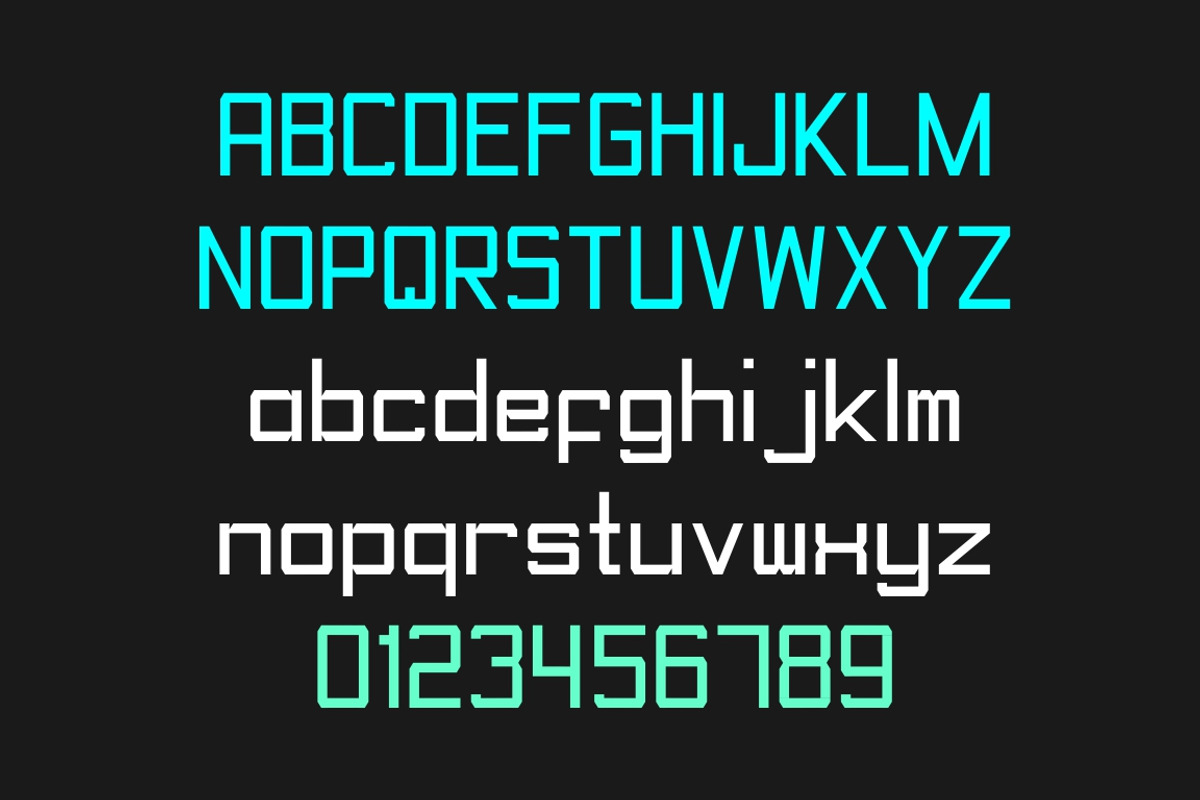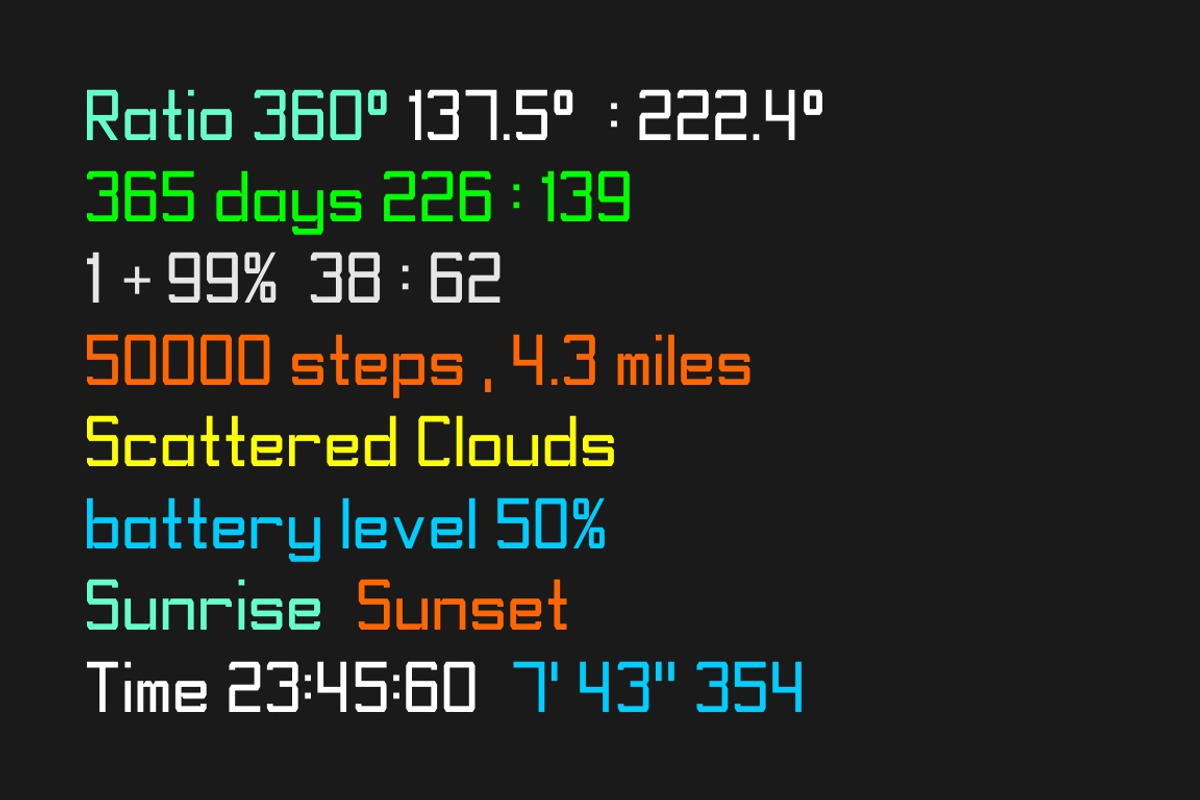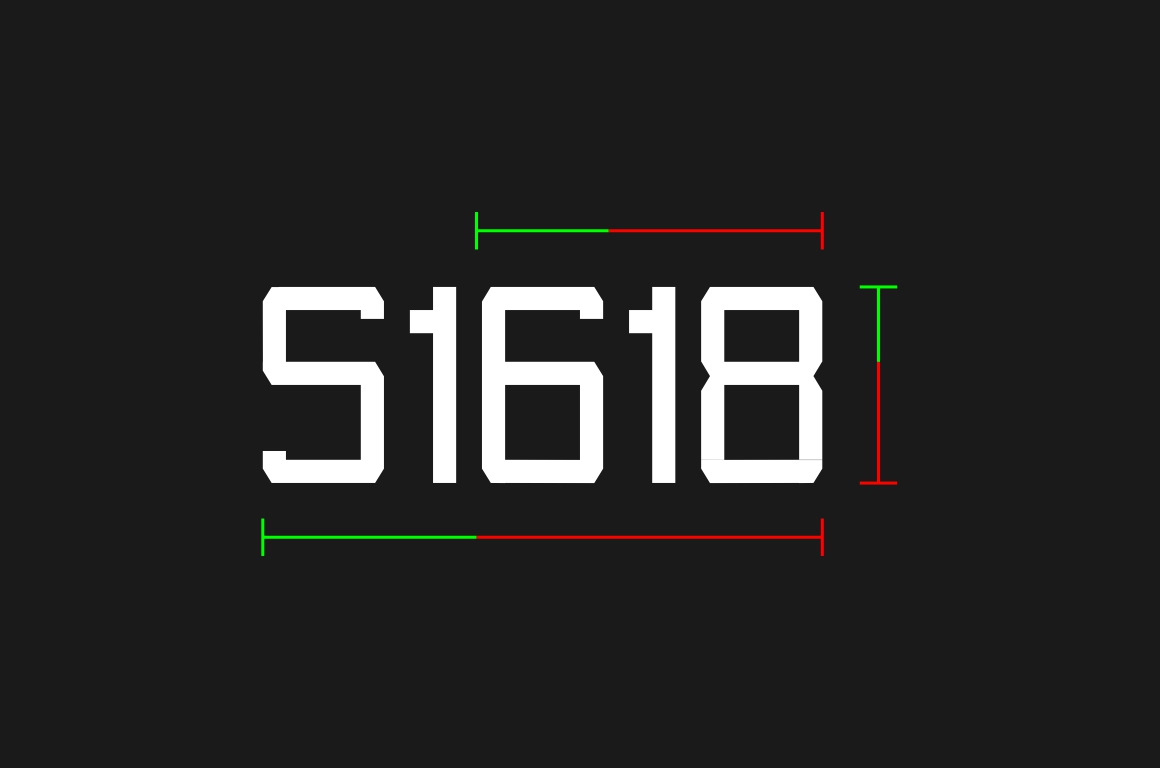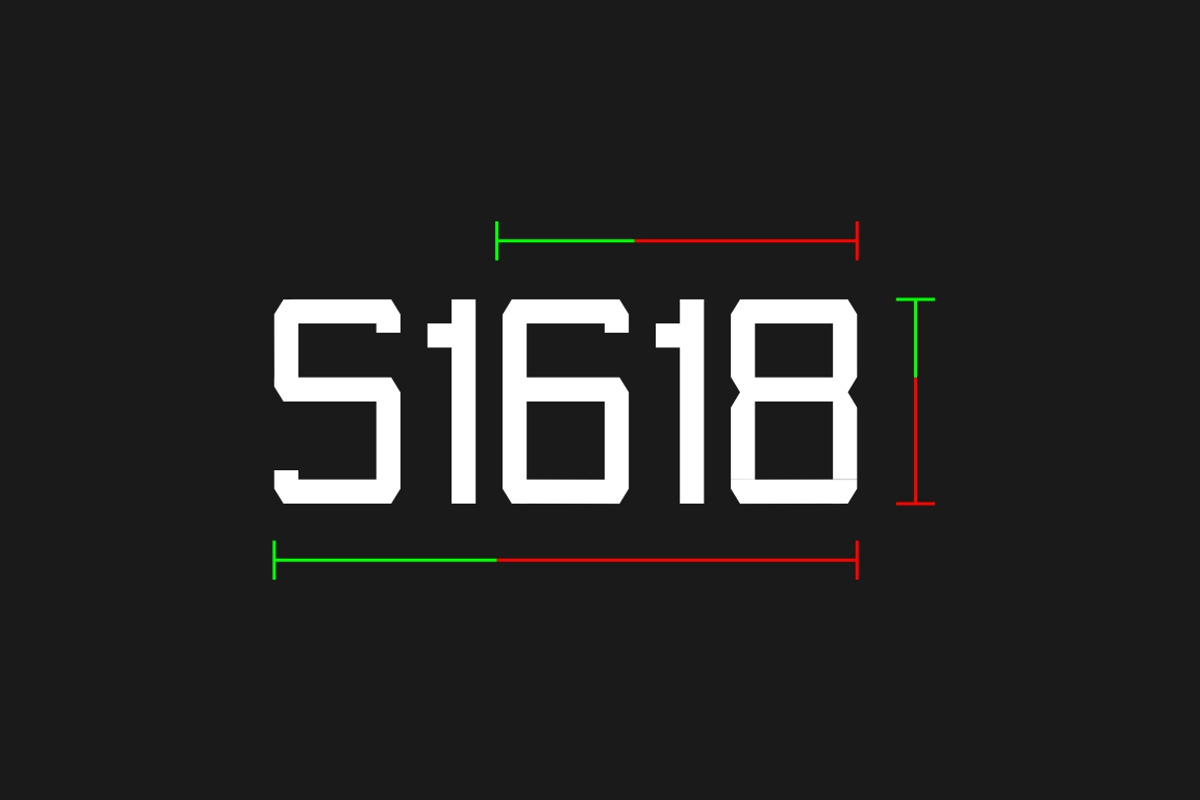
S1618 Display font
Description:
s1618 font suitable for type of modern technology information, including mobile phones, televisions, printers, computers, electronics or science-fiction designs. useful both for presentation, industrial and commercial information displays as well as for hobbyist human–machine interfaces. The refresh rate is typically fast enough to prevent the human eye from detecting the flicker. the font are great for use any design project, on the web also in print etc... =)